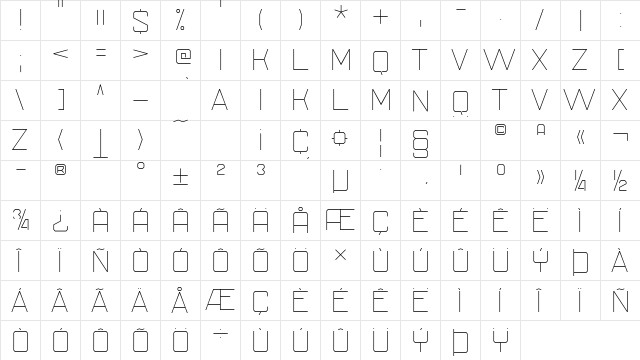
SU-30SM 150 Font Preview
SU-30SM 150
SU-30SM 150 Font Details
| Style | 150 |
| Foundry | Adam Rucki |
| Designer | Adam Rucki |
Design Context for SU-30SM Typeface
SU-30SM offers clean, dependable letterforms without strong stylistic allegiance, making it a practical choice for designers who need flexibility.